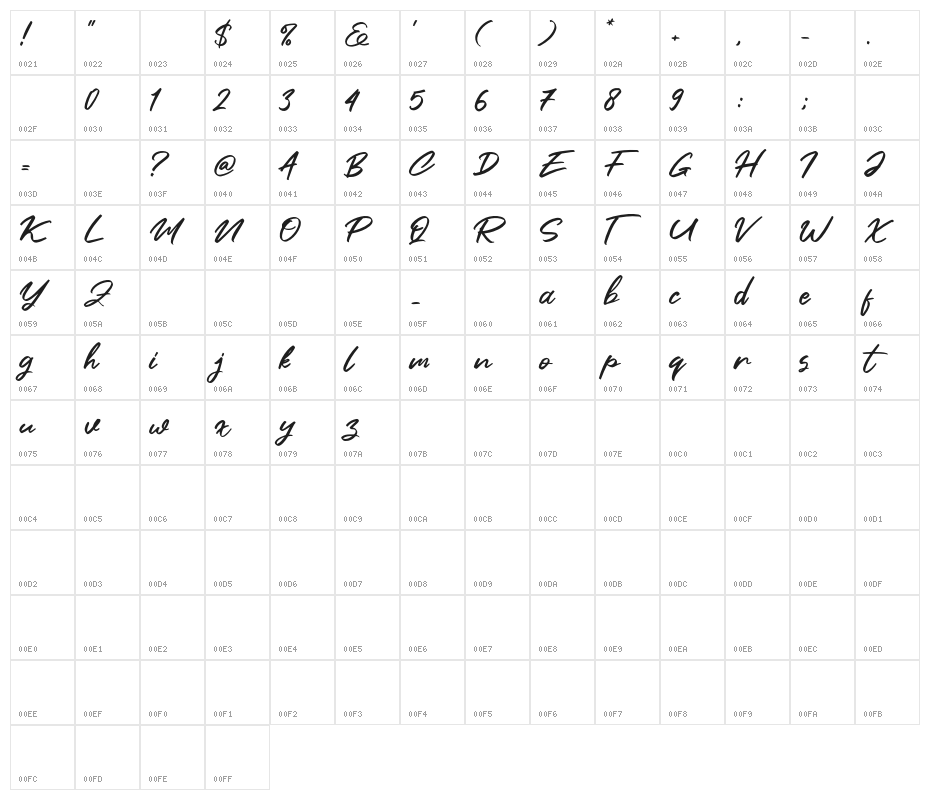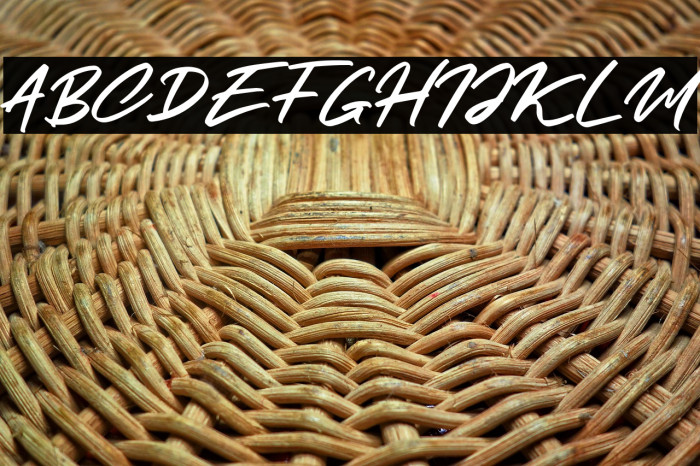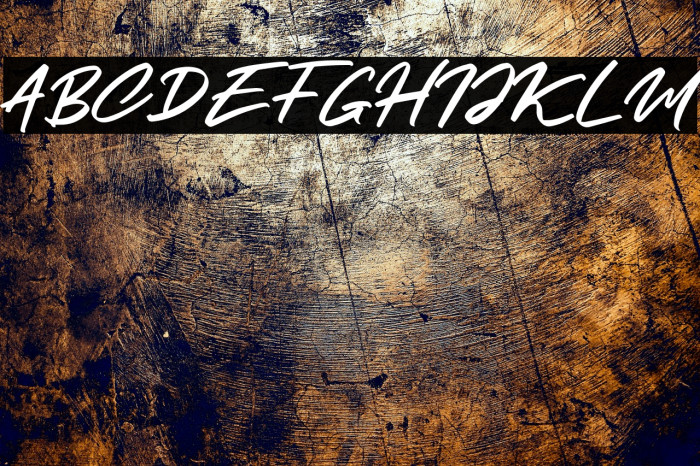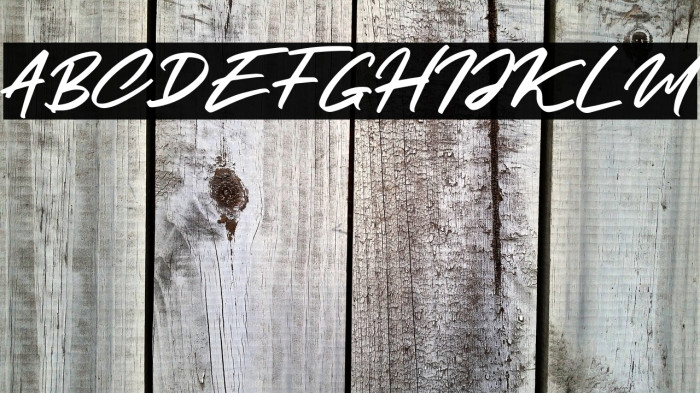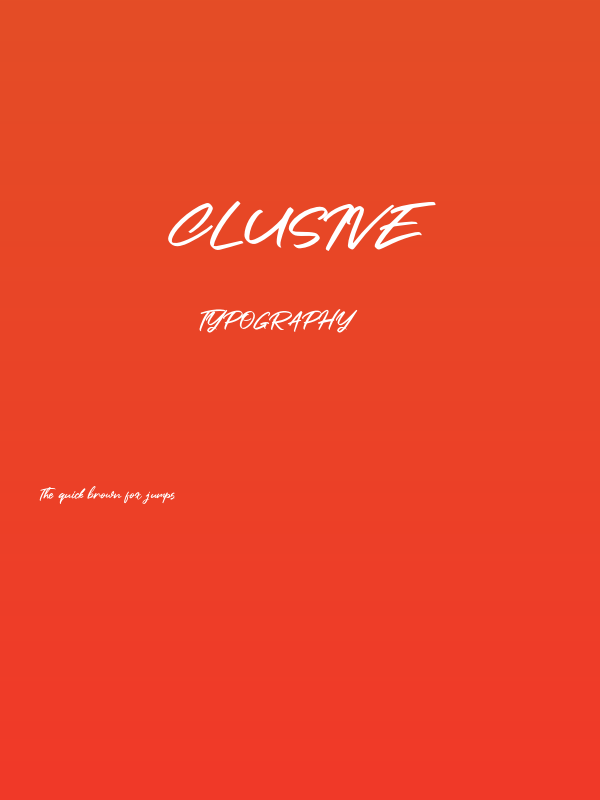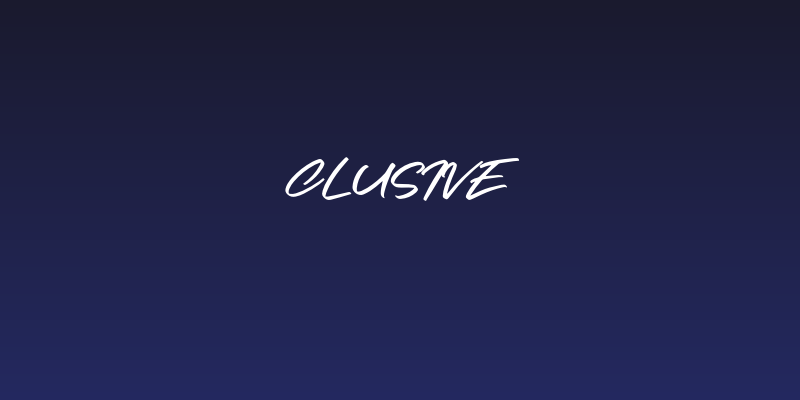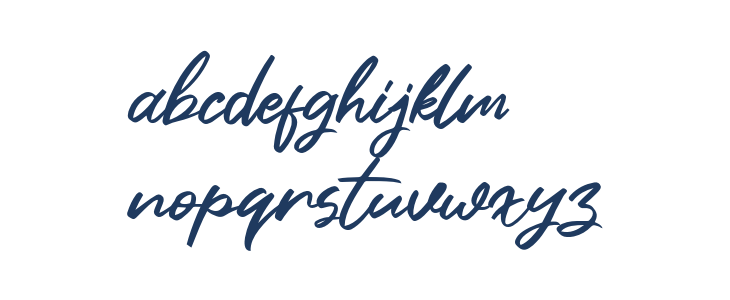
Clusive Font
Clusive Description
This font exudes a dynamic and fluid style, characterized by its cursive script that mimics natural handwriting. The letters are interconnected, creating a seamless flow that enhances its elegant appearance. The strokes are bold and confident, with a consistent thickness that maintains readability while adding a touch of sophistication. The uppercase letters stand tall with a slight slant, while the lowercase letters maintain a playful yet refined demeanor. Numbers and special characters are crafted with the same attention to detail, ensuring a cohesive look across all elements. This font is perfect for projects that require a personal touch or a sense of elegance and creativity.
| Overall Style | Elegant |
| Use Case | Logos, Invitations, Decorative text |
| Proposed Projects | Ideal for wedding invitations, greeting cards, branding, and logo design. |